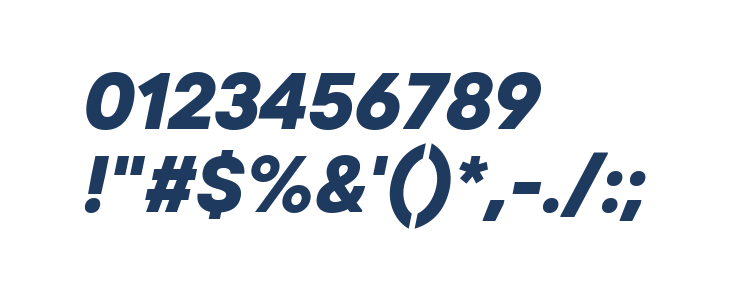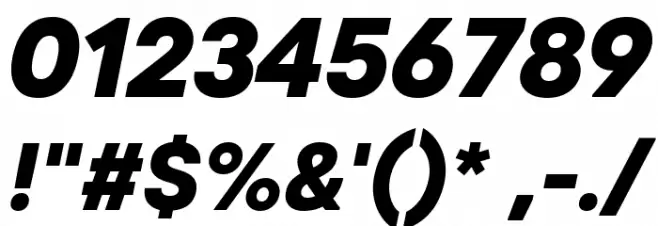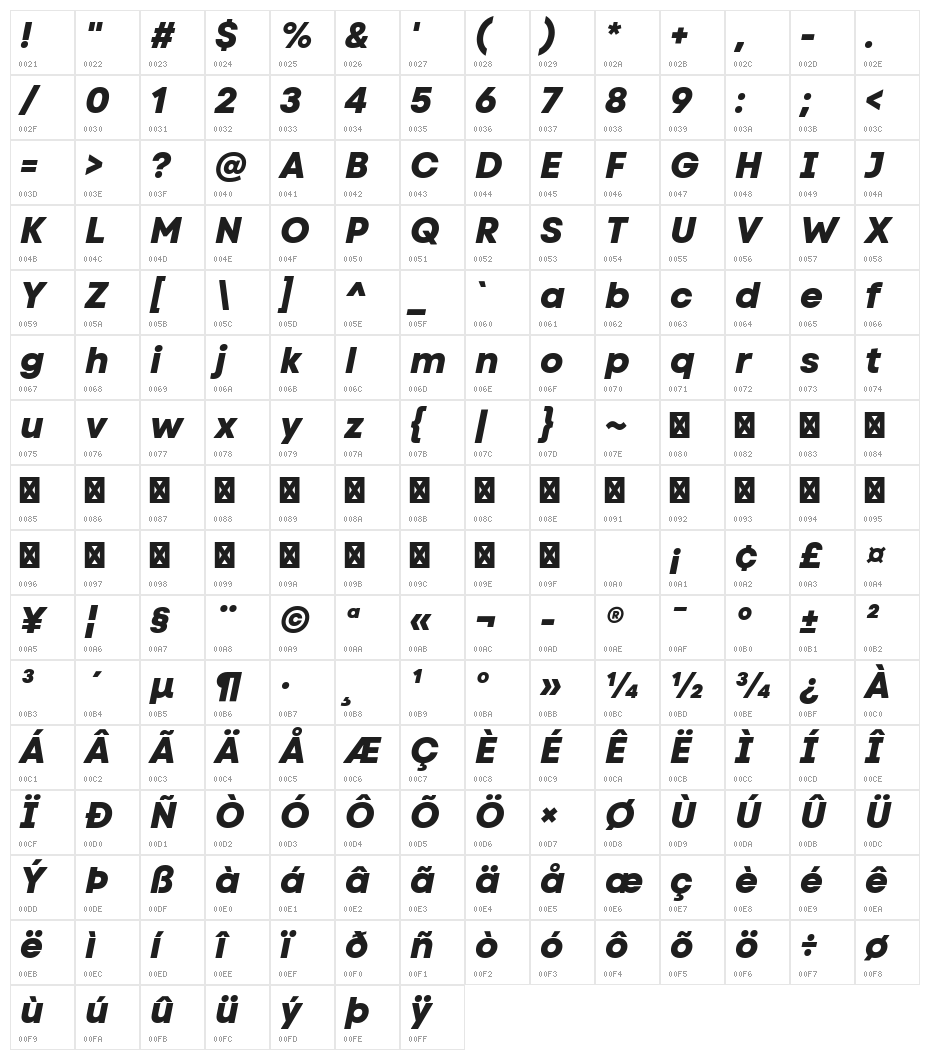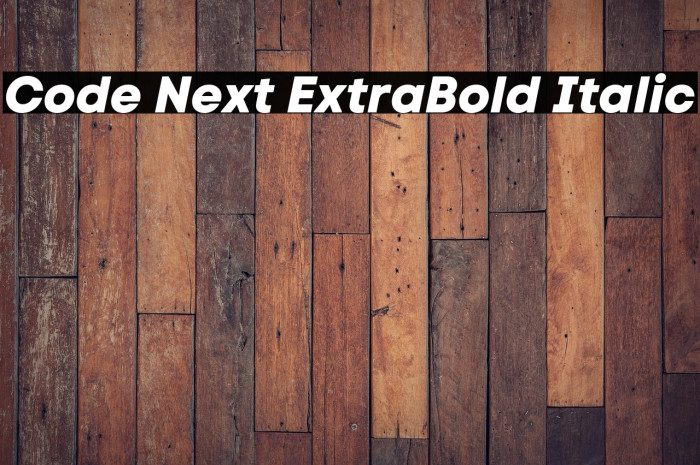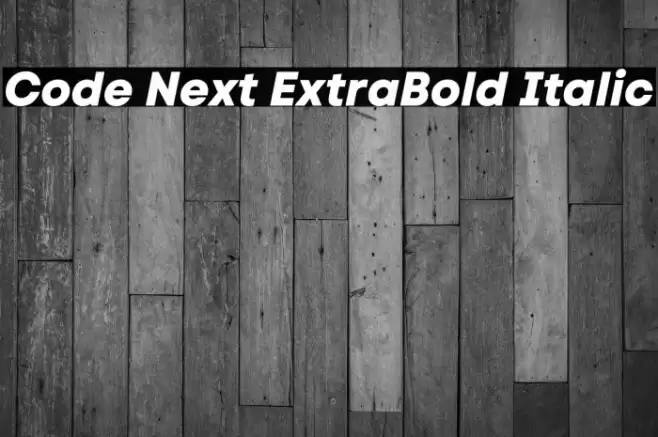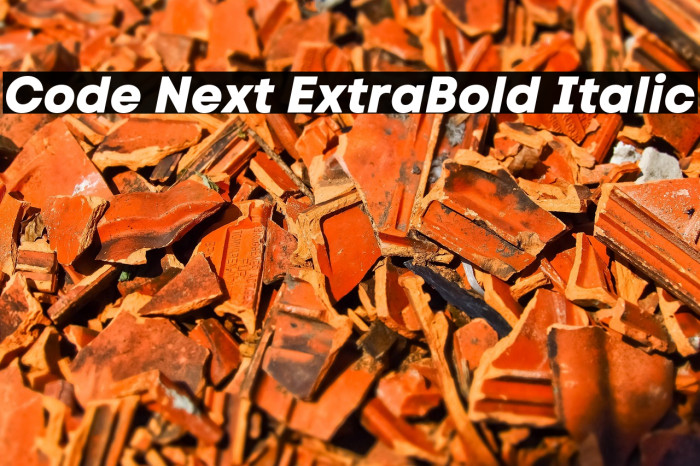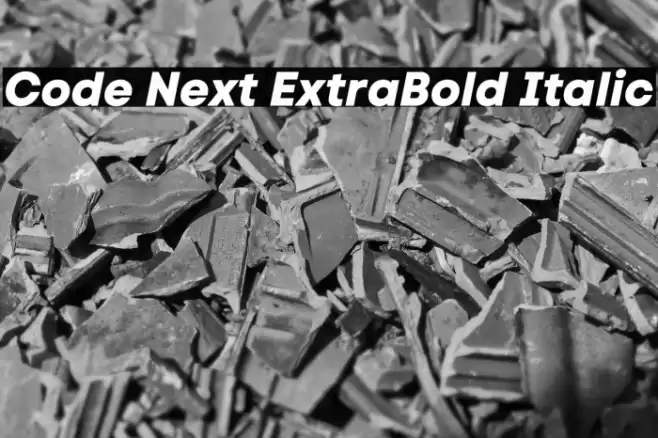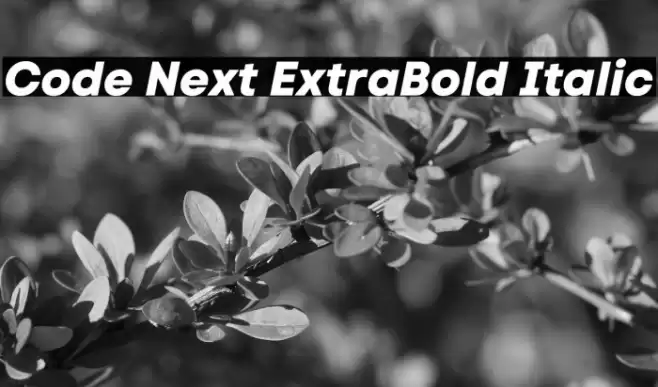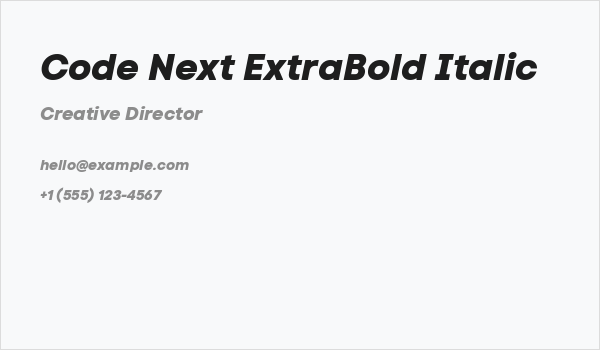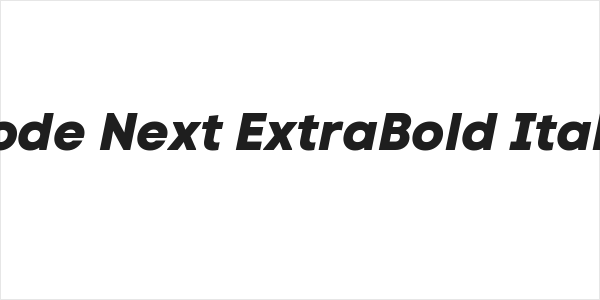
Code Next ExtraBold Italic Font
Code Next ExtraBold Italic Description
This font exhibits a bold and dynamic presence with its extra bold weight and italic style. The characters are designed with a modern sans-serif aesthetic, featuring smooth curves and clean lines. The italic slant adds a sense of motion and energy, making it suitable for attention-grabbing headlines and impactful designs. The uppercase and lowercase letters maintain a consistent style, ensuring readability and uniformity across different text sizes. The numerals and special characters are crafted with the same boldness, providing a cohesive look throughout. This font's strong visual impact makes it ideal for branding, advertising, and digital media projects.
| Proposed Projects | Ideal for branding, advertising, digital media, and attention-grabbing headlines. |